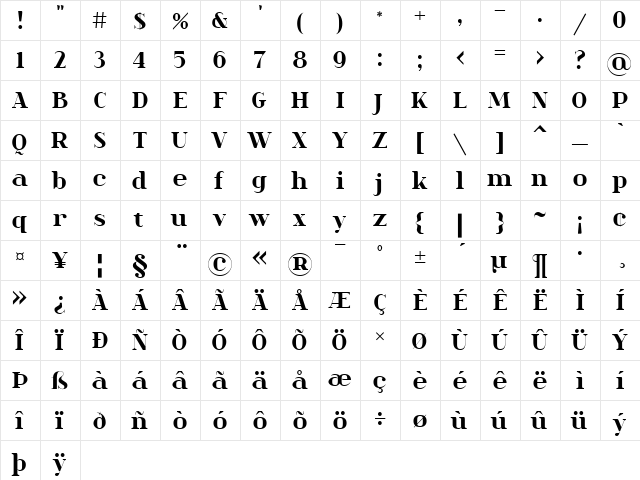
spinwerad Bold Font Preview
spinwerad Bold
spinwerad Bold Font Details
Design Context for spinwerad Typeface
spinwerad takes a measured approach to typography — its balanced proportions and neutral character make it a reliable workhorse for both digital and print work. The heavy weight commands attention and anchors typographic hierarchies.